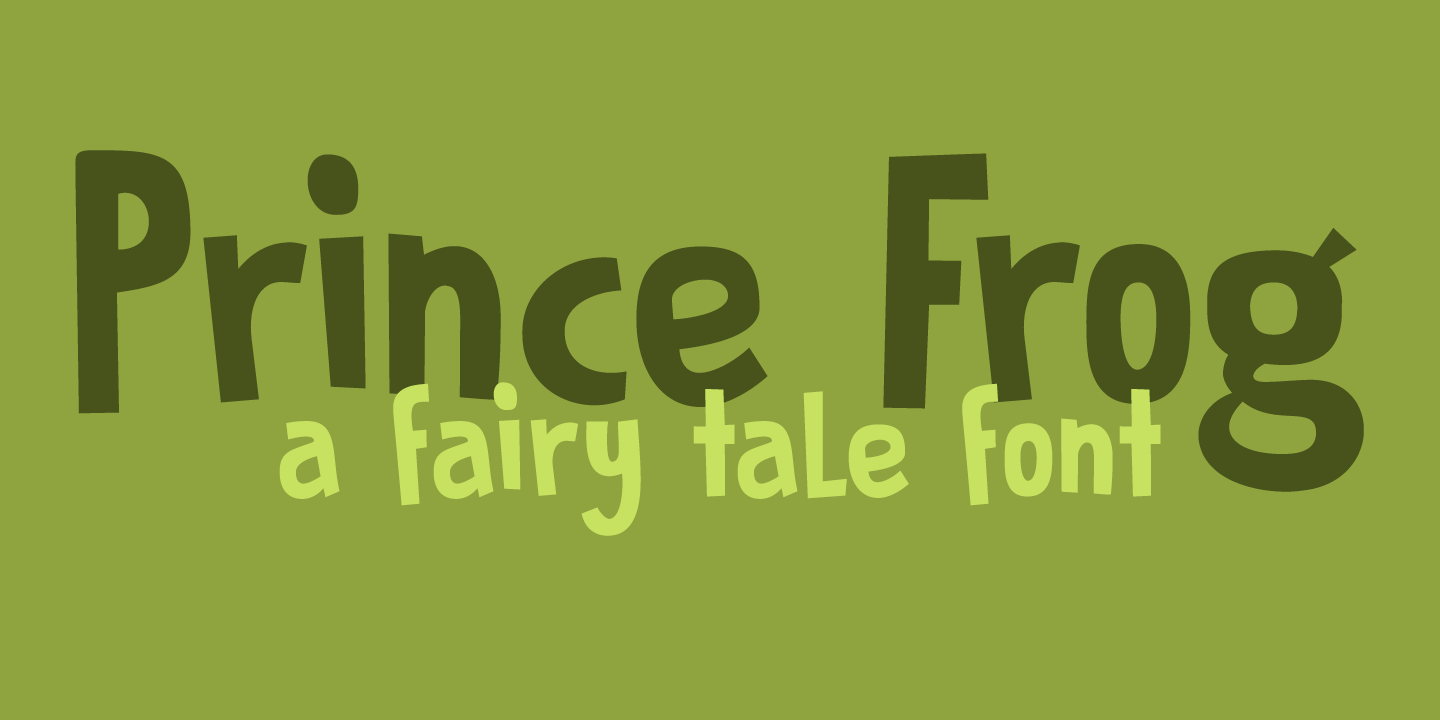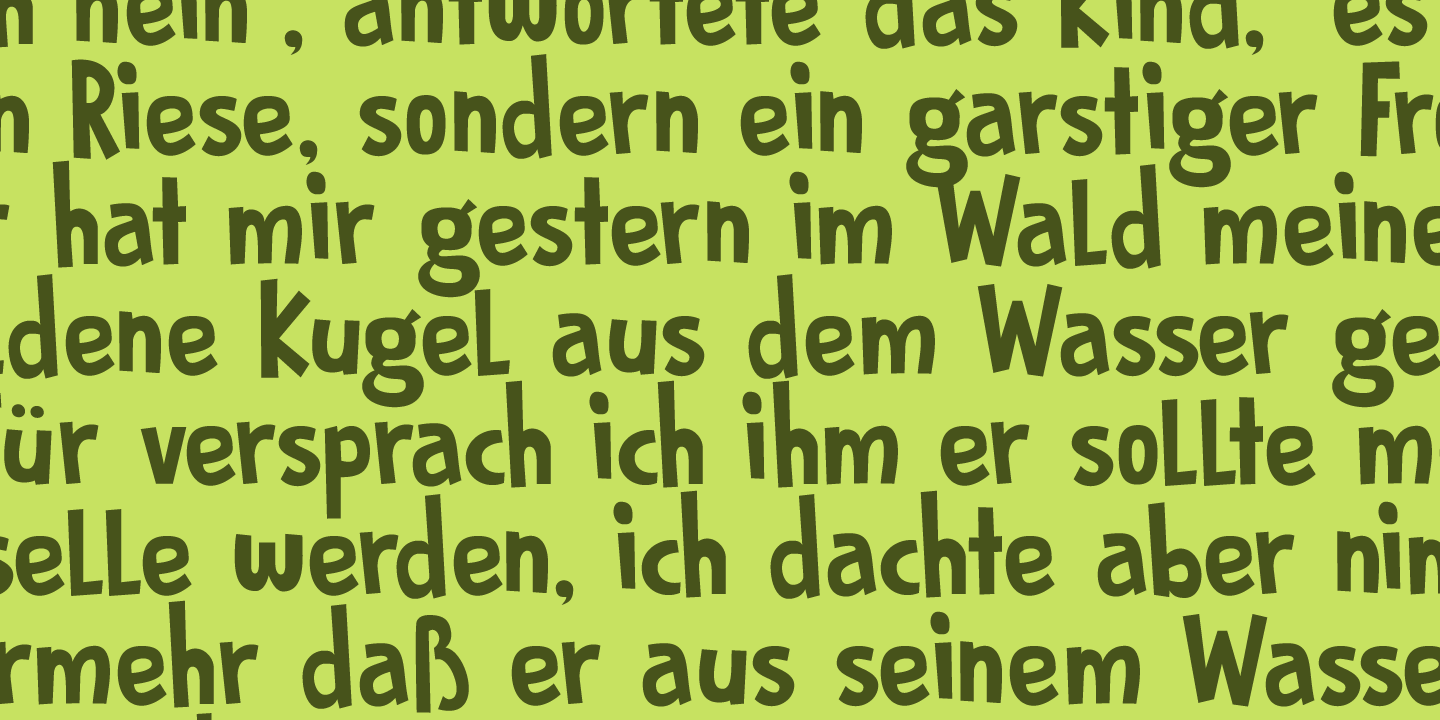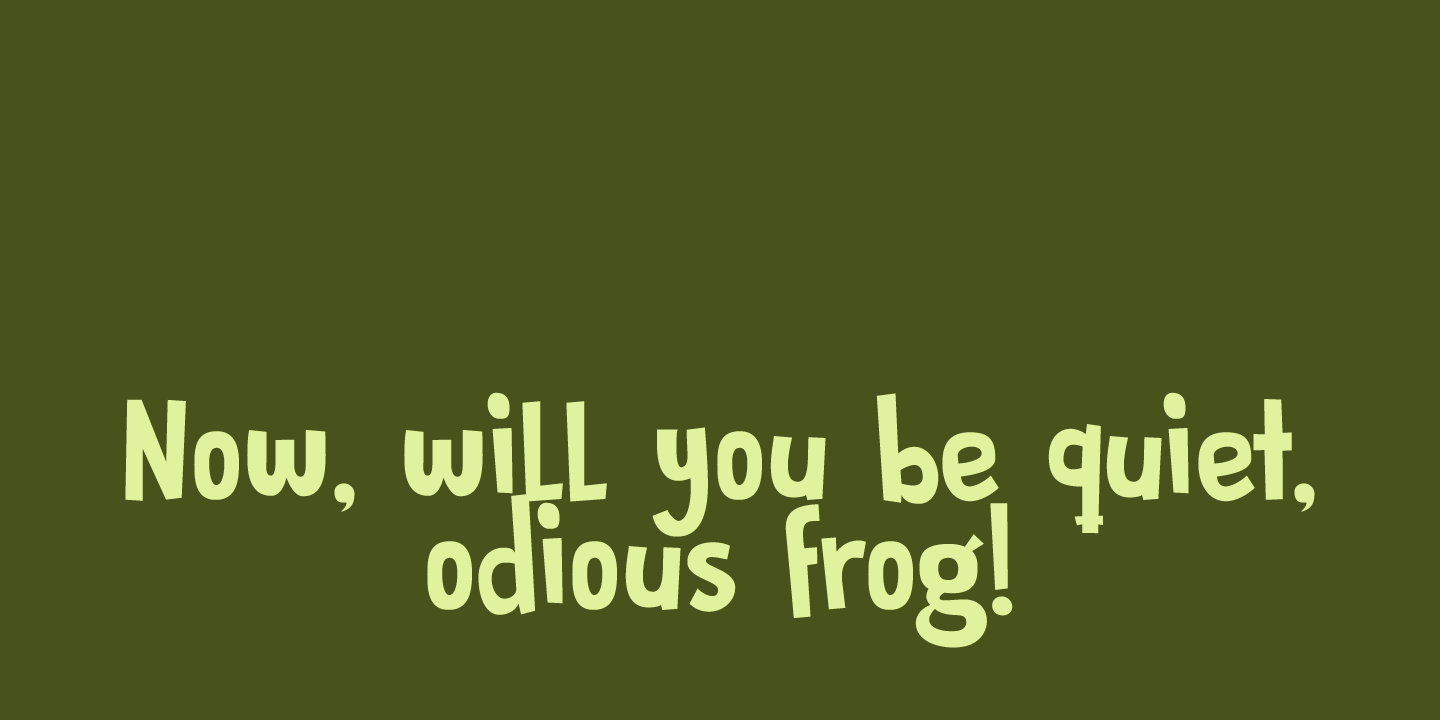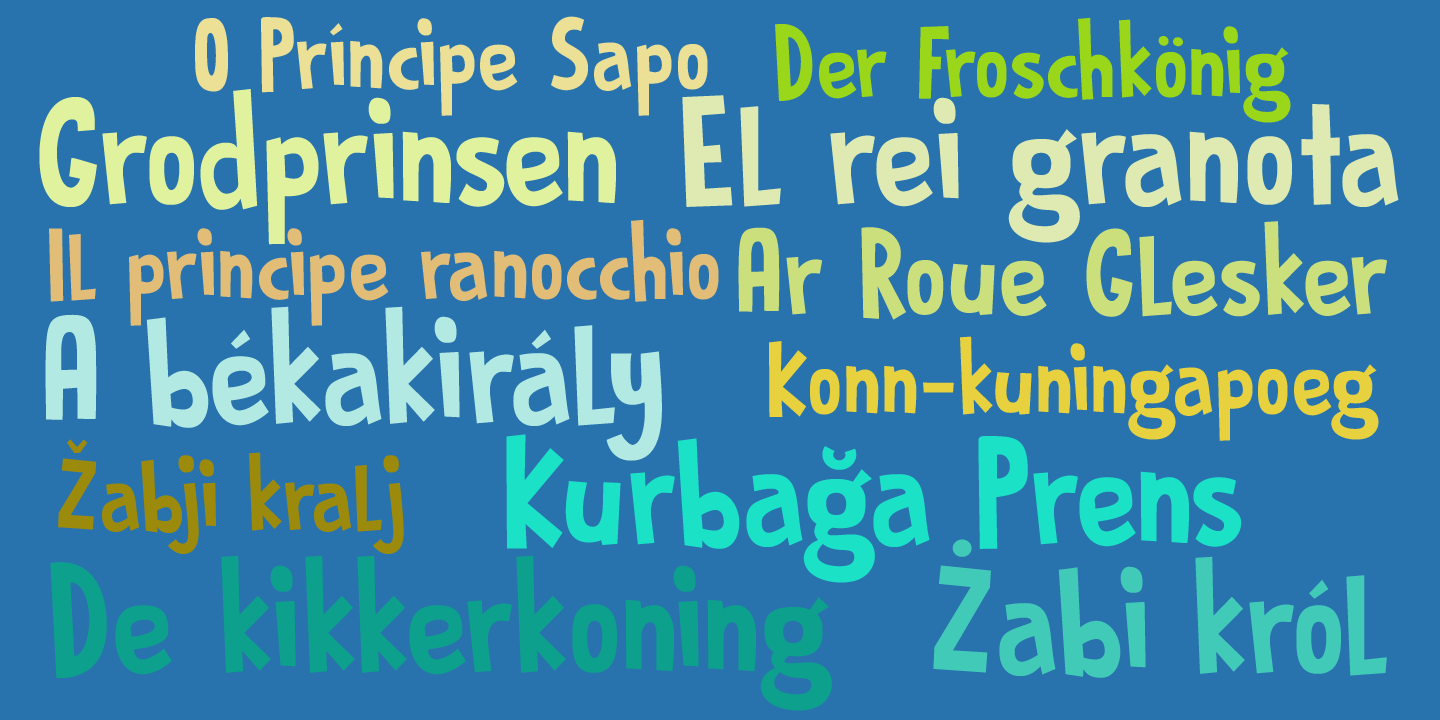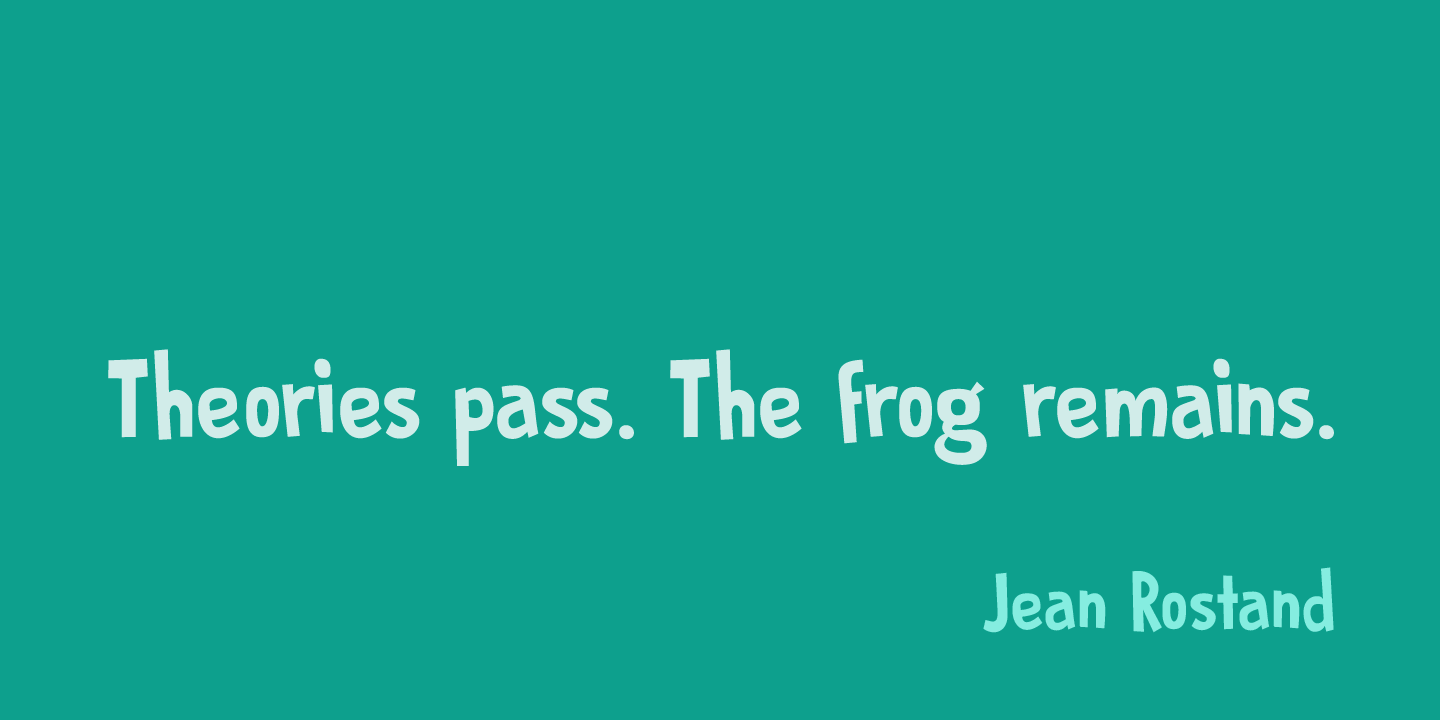
Prince Frog
Prince Frog started out as an attempt to ?pimp? Rabbit On The Moon font. It quickly evolved into an entirely different typeface with just a hint of ?Rabbit? in it. Prince Frog is a very happy, very legible font and would be ideal for children's book covers, posters and packaging. It comes with enough diacritics to keep even the most spoiled princess happy.